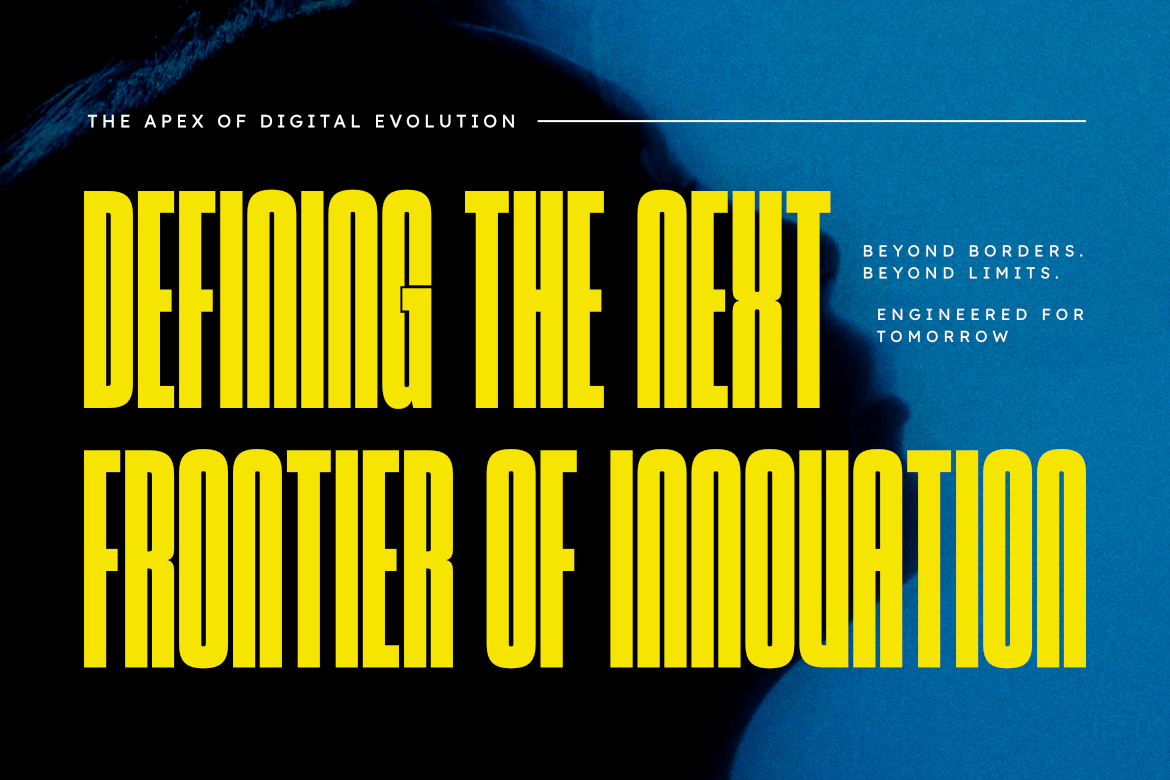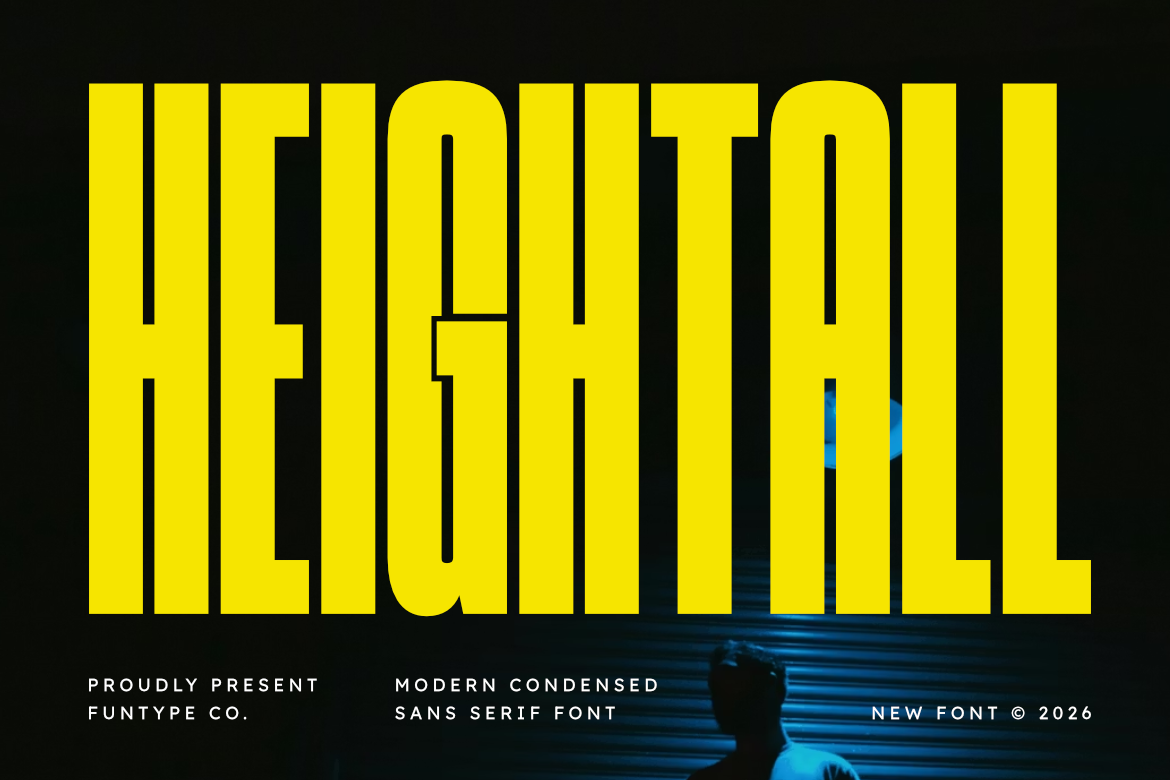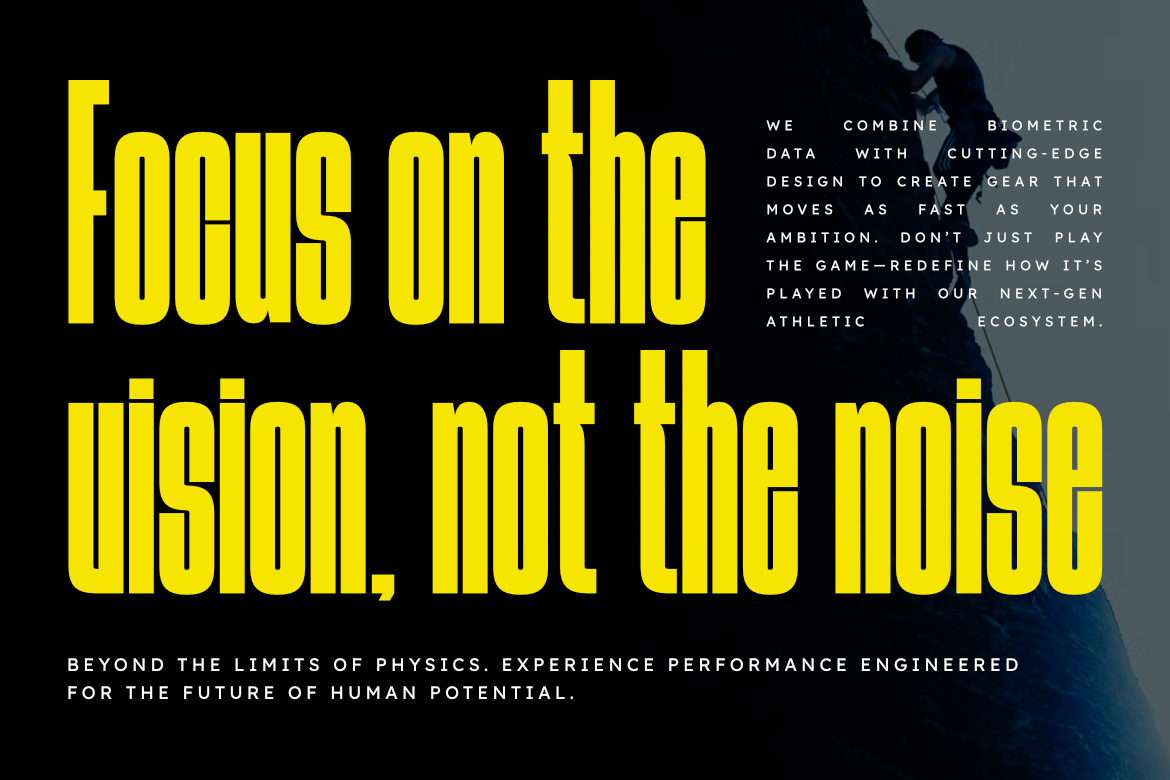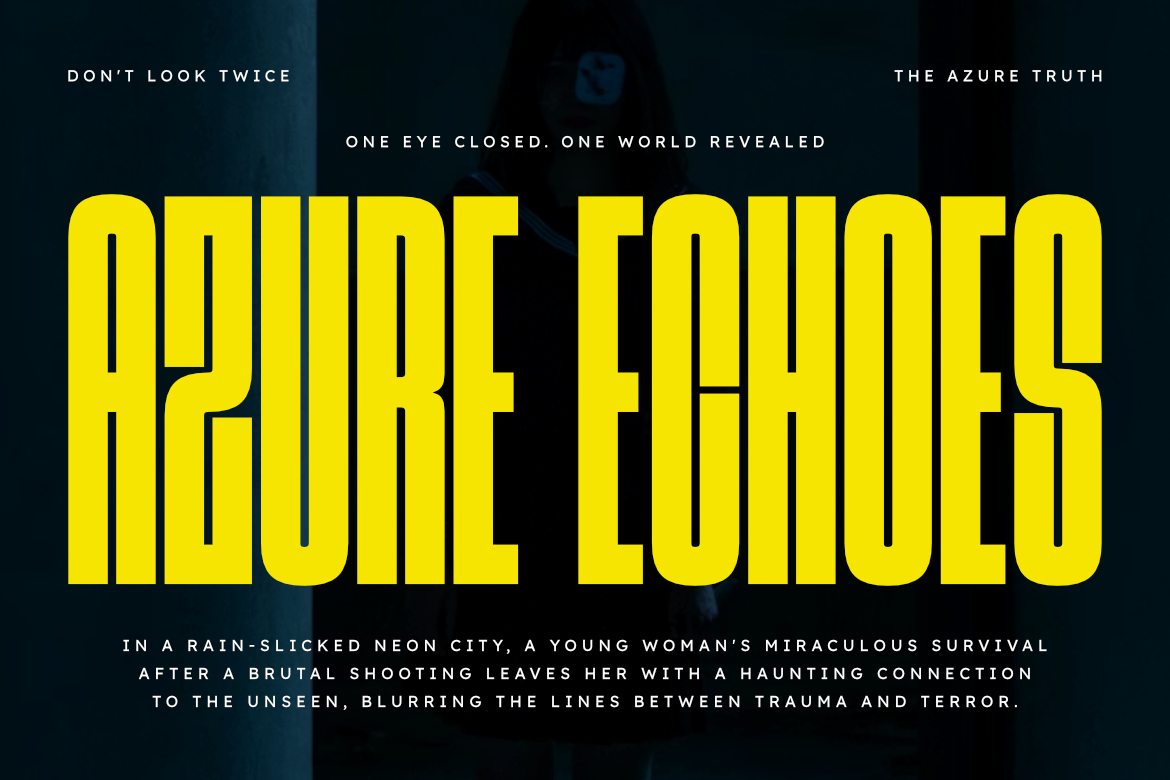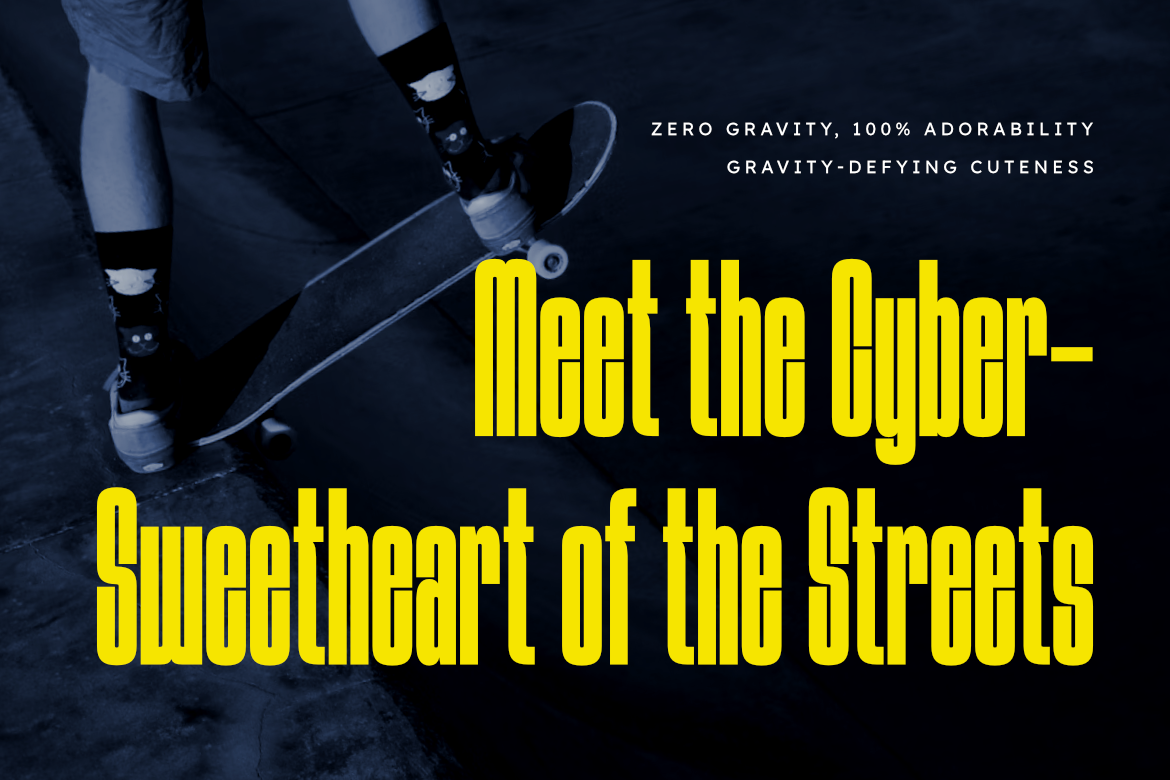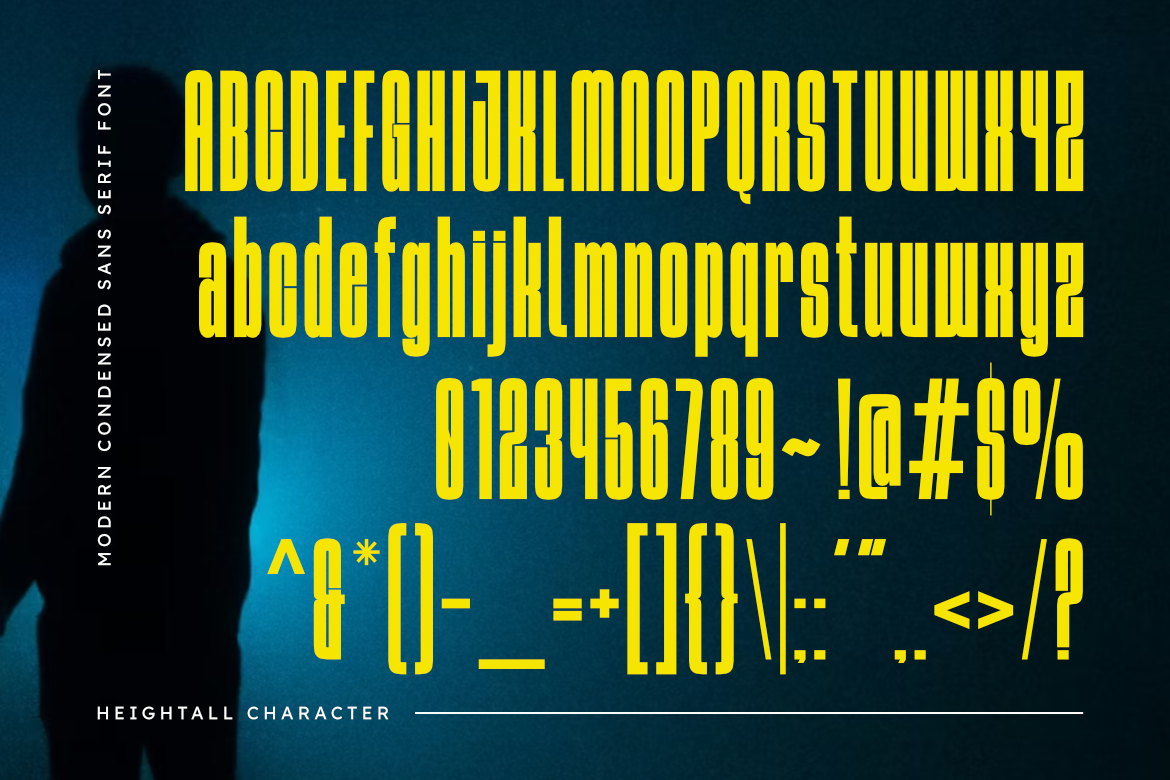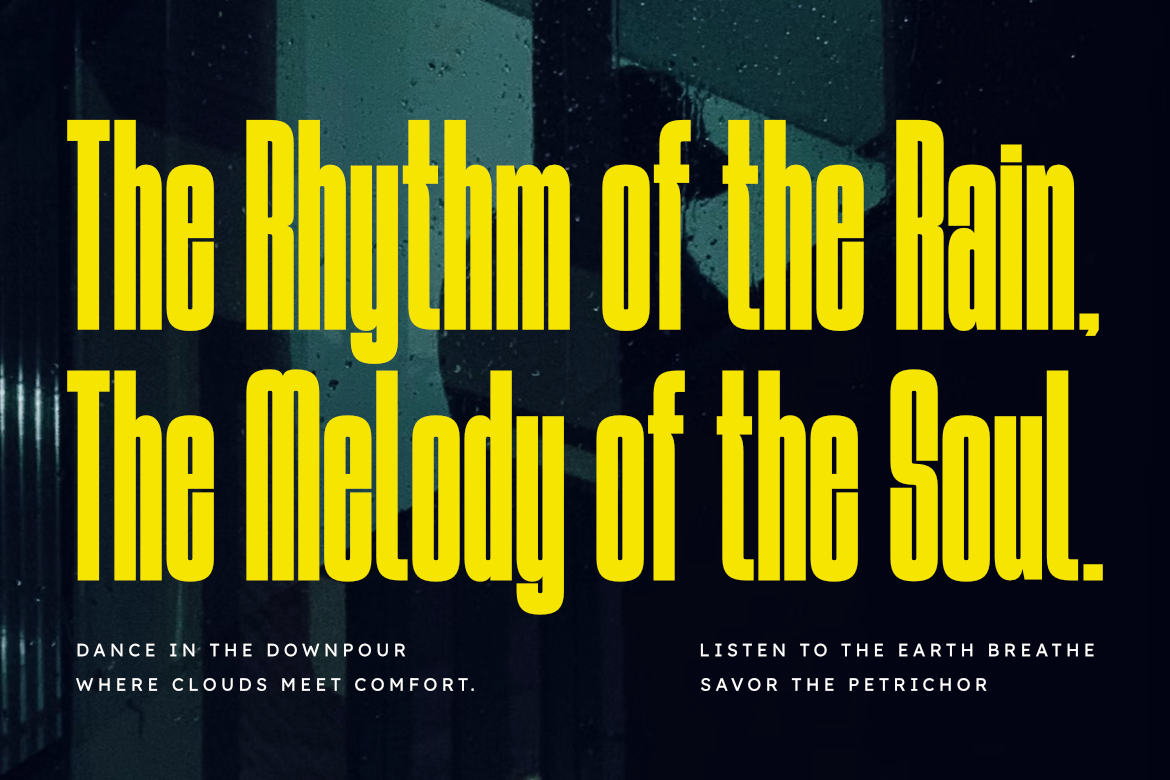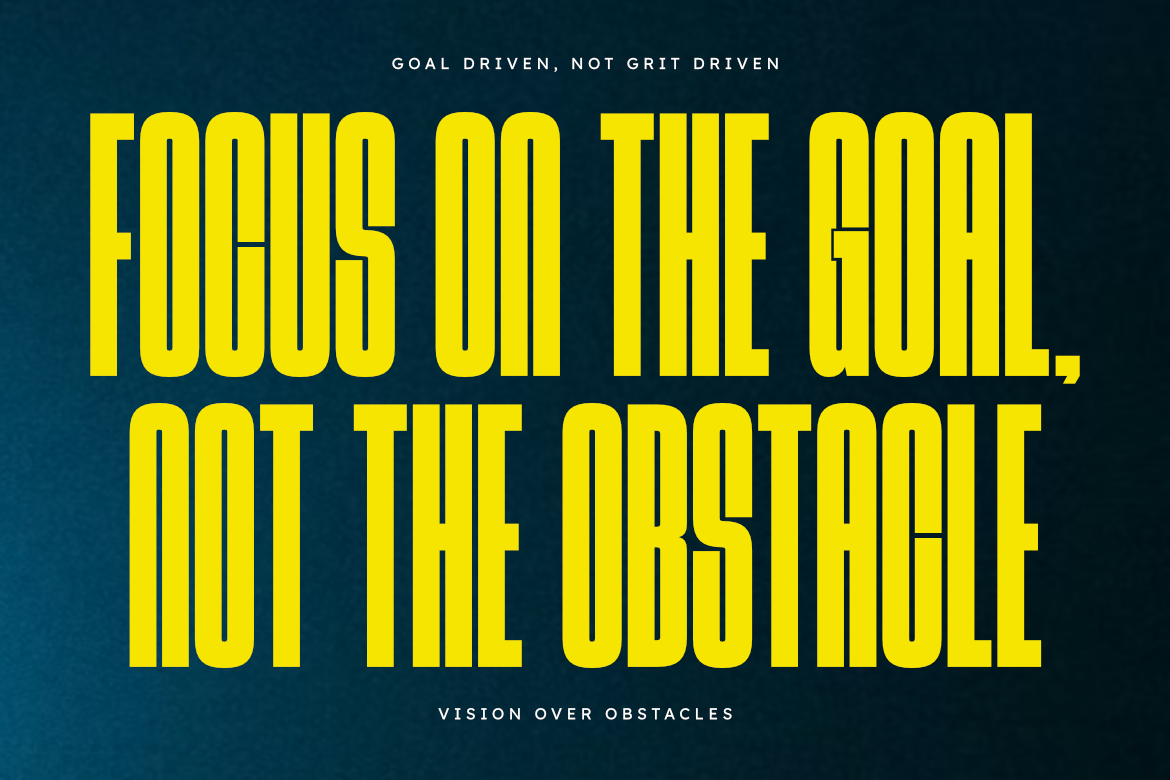
Heightall – Modern Condensed Sans Serif Font
Heightall is a high-impact, ultra-condensed sans serif typeface designed for maximum vertical presence. With its exceptionally tall structure and narrow geometric strokes, Heightall is engineered for designers who need to command attention in compact horizontal spaces while maintaining a sleek, modern aesthetic.
This font is a powerhouse for display typography, offering a solid and authoritative look that is perfect for dominant headlines and bold branding. Whether you are creating cinematic movie titles, aggressive sports graphics, or high-end industrial posters, Heightall delivers a polished and uncompromising visual presence that stands tall above the rest.
Main Features:
- Bold and Ultra-Tall Condensed Design
- Precise Geometric Structure
- High-Visibility Display Typography
- Optimized for High-Impact Headlines & Branding
Best Used For: Powerful branding, cinematic titles, bold magazine headers, industrial signage, modern posters, album covers, and high-impact advertising.